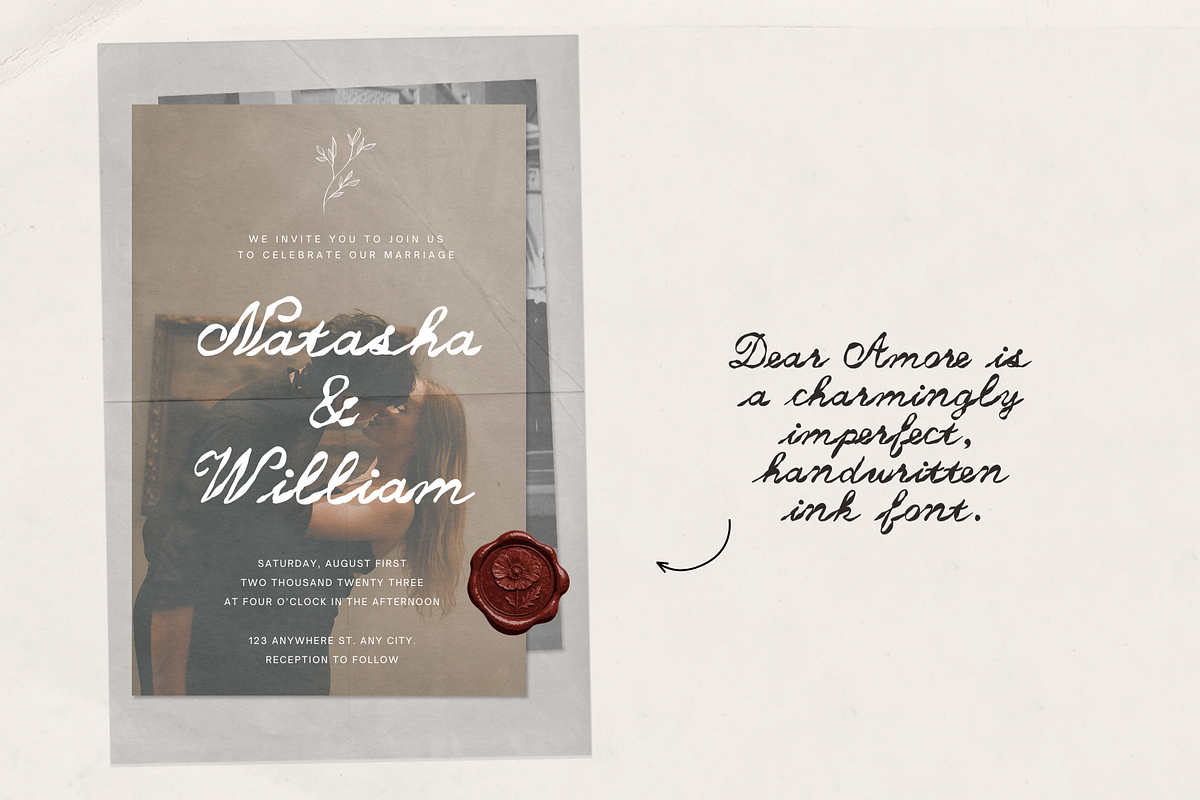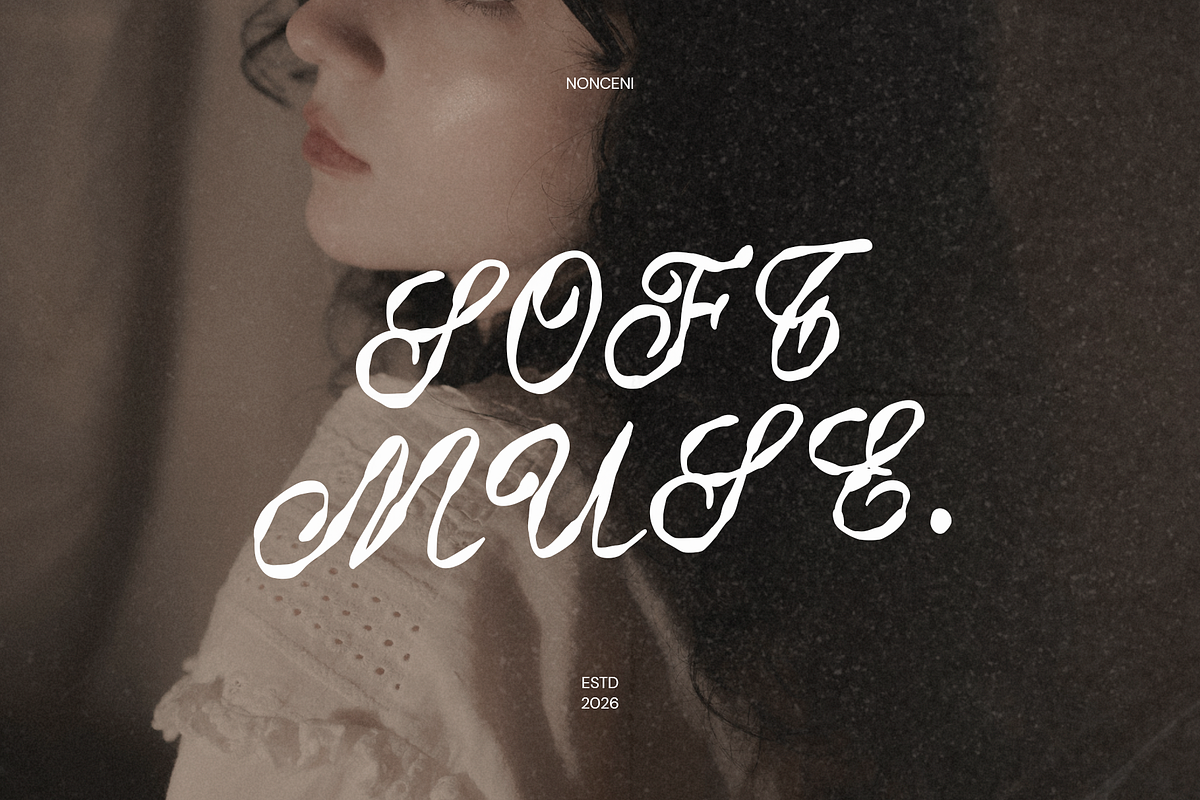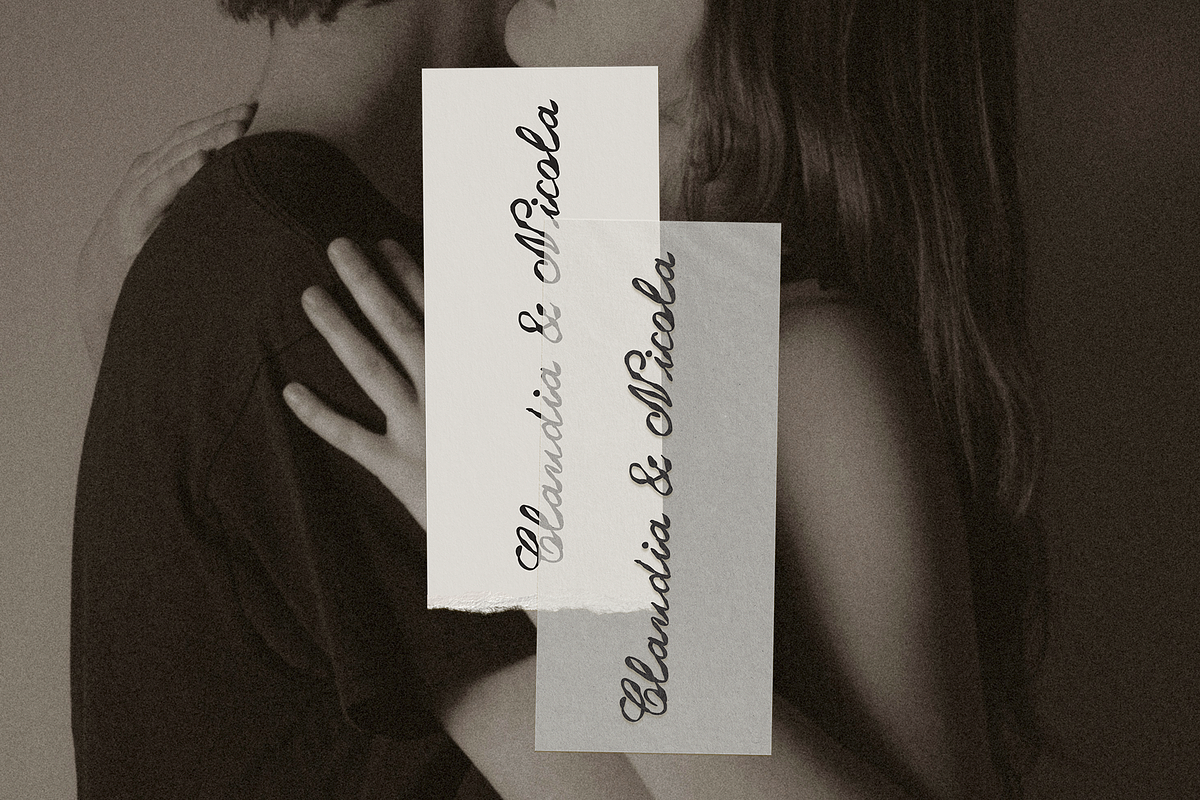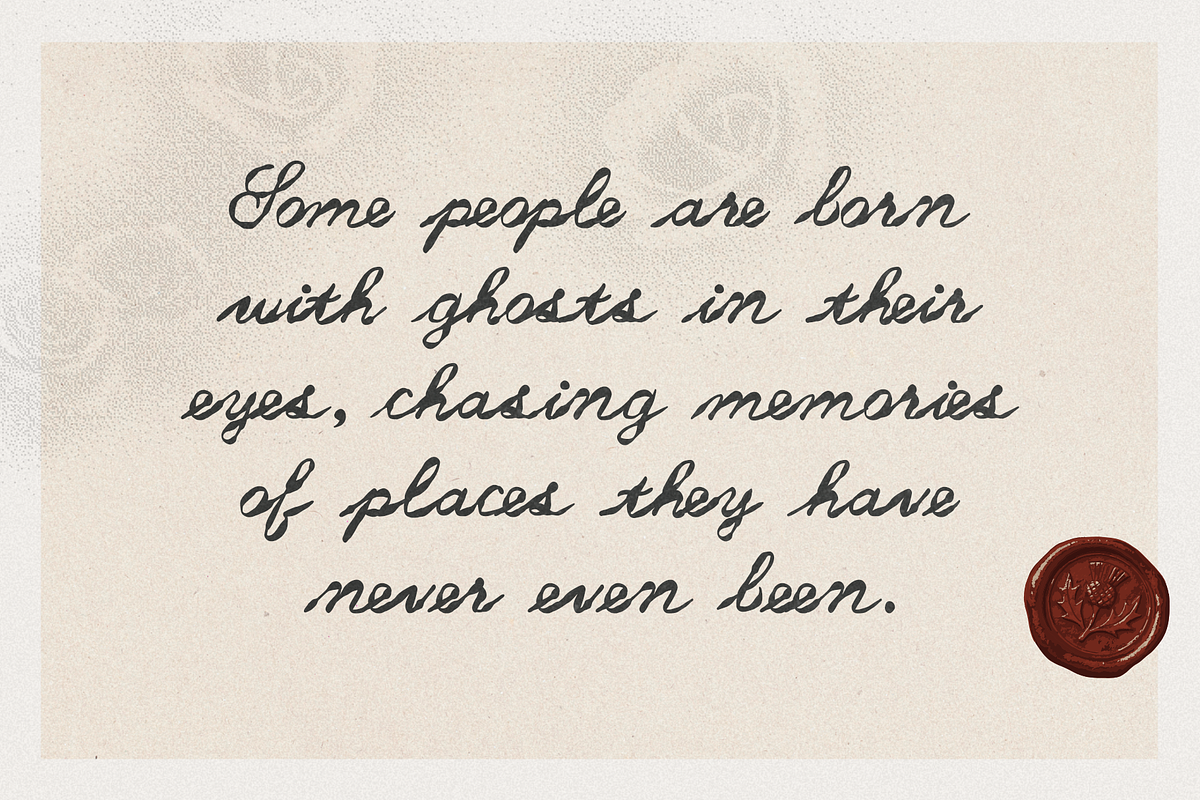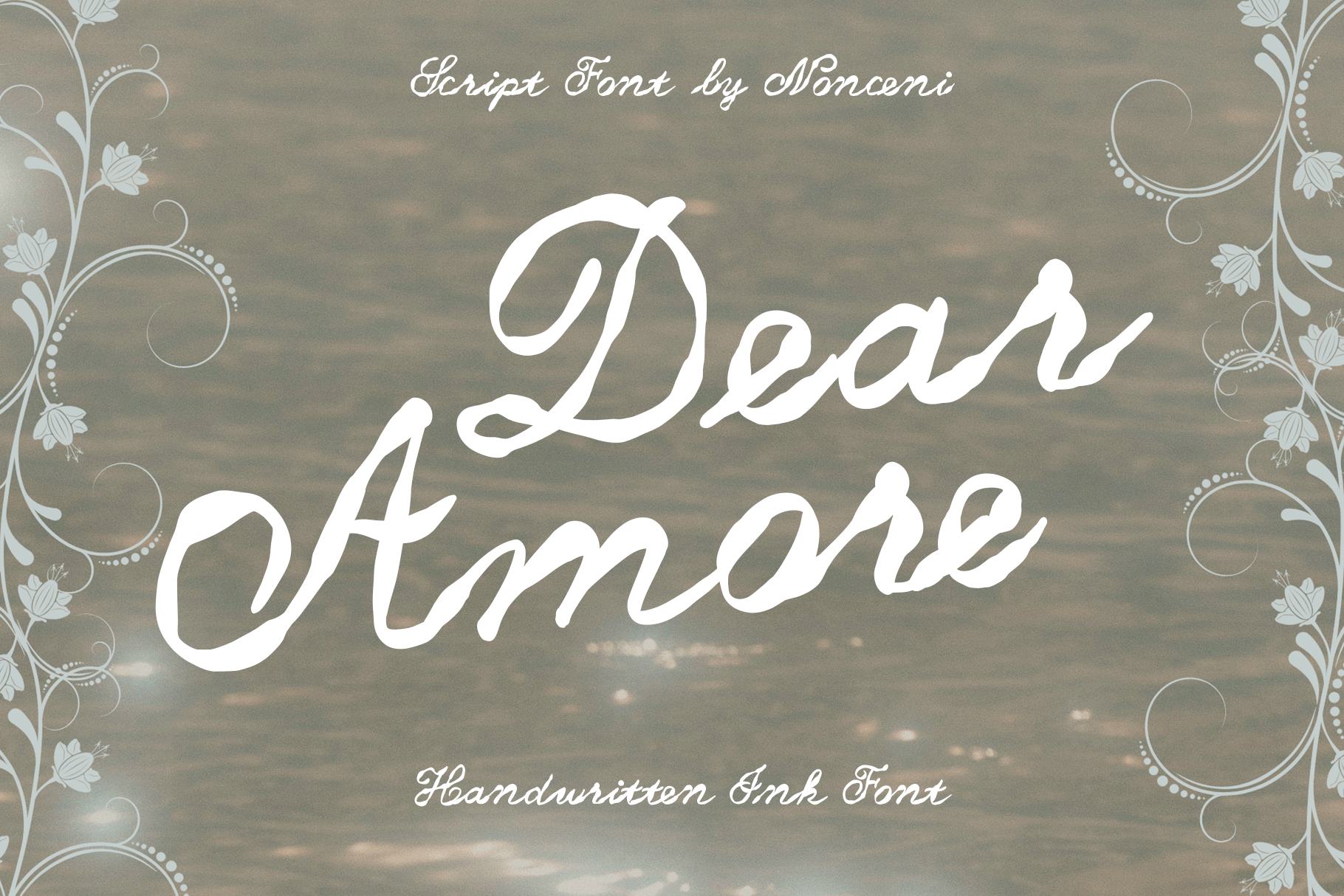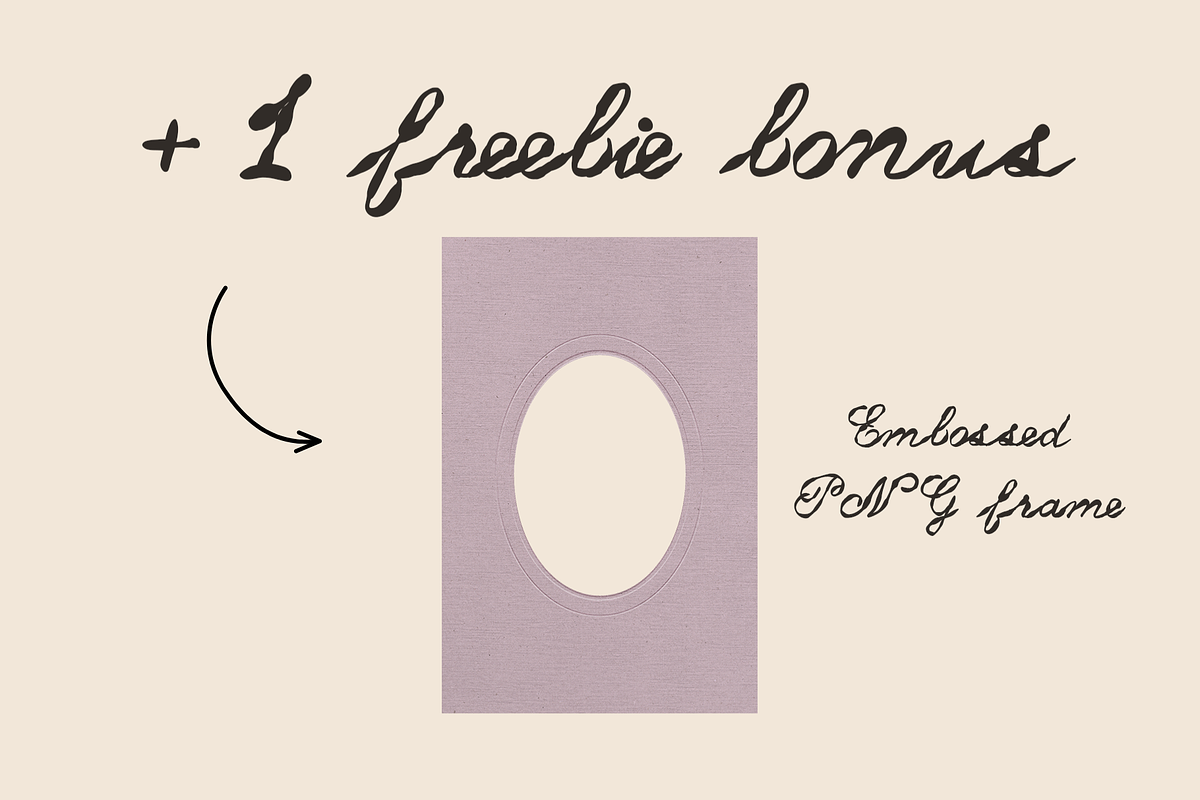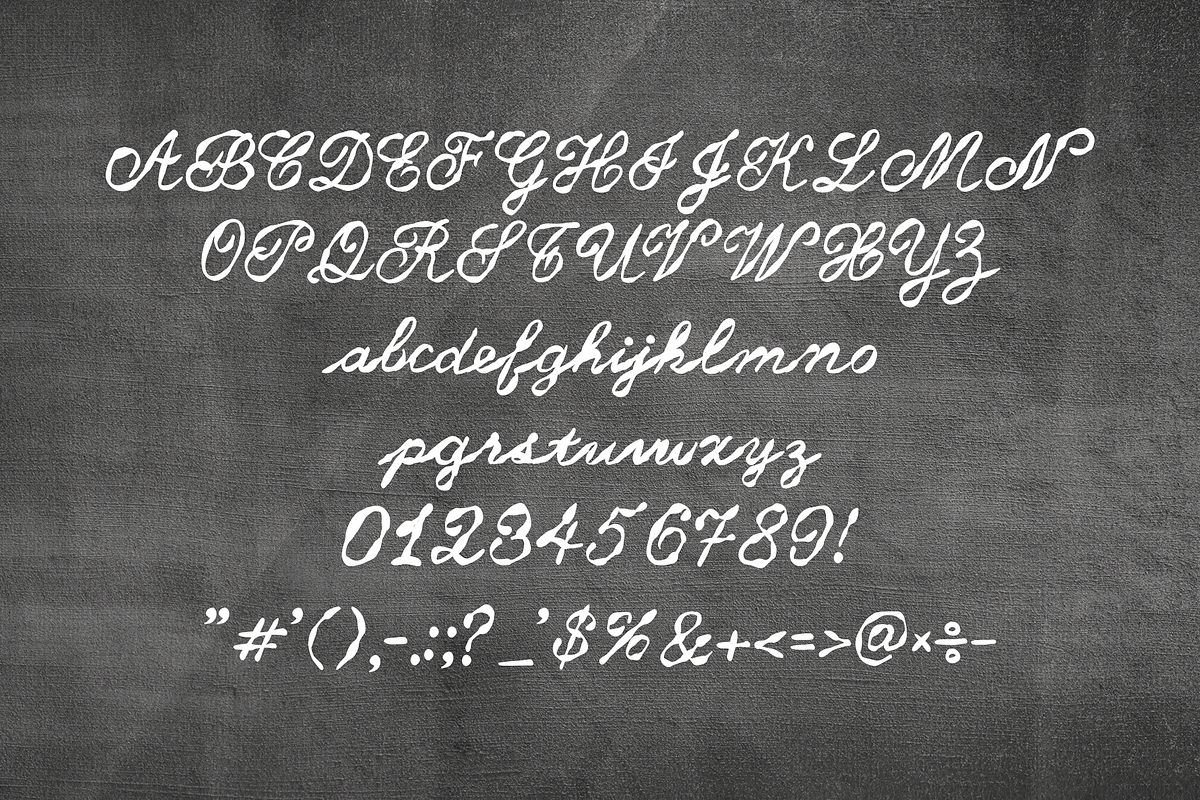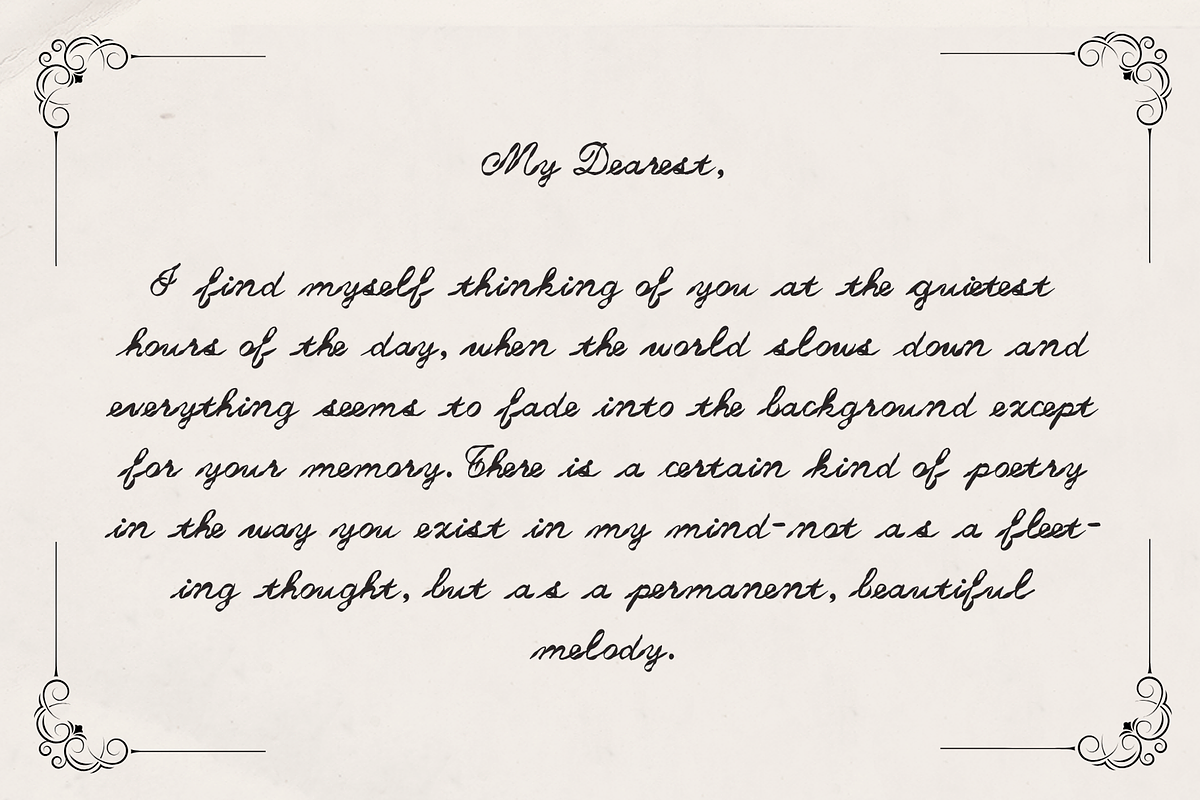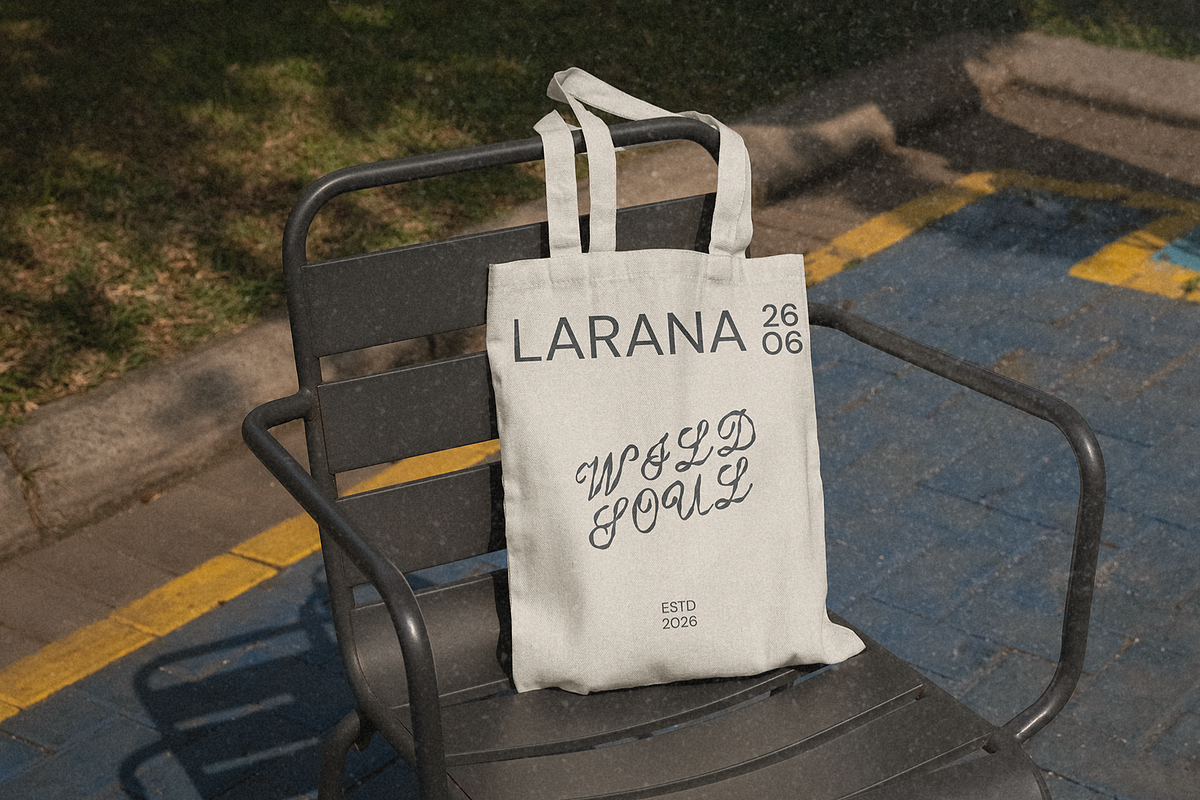
Dear Amore Handwritten Ink Font
Dear Amore is an authentic, handwritten ink script designed for projects that require a human touch, character, and a bit of vintage soul. Its raw, textured edges replicate real ink on paper, making every word look like it was thoughtfully penned just a moment ago.
What makes it unique?
Inky Texture: Distinctive, organic edges that give a realistic handwritten look.
Effortless & Casual: A perfectly balanced, slightly careless rhythm that avoids looking rigid or overly digitized.
Versatile Aesthetic: Blends seamlessly into retro, vintage, coquette, or high-fashion editorial styles.
Wedding Stationery: Elegant yet modern invitations, RSVP cards, and envelopes (looks stunning paired with wax seals!).
Branding & Packaging: Perfect for artisanal brands, cosmetic labels, and lifestyle photography overlays.
Social Media & Content Creation: Ideal for aesthetic TikTok/Shorts covers, digital journaling, and mood boards.
Editorial Design: Eye-catching quotes, book titles, and magazine-style layouts.